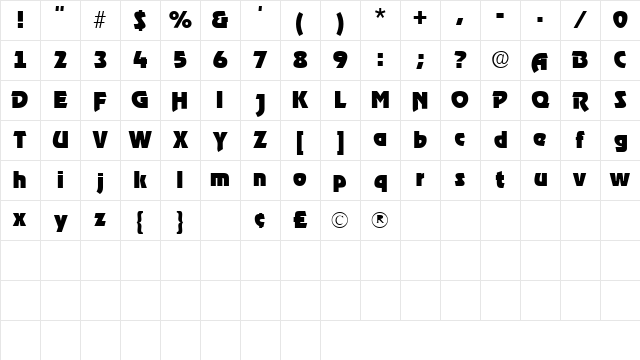
Design Context for TenaceSSK
TenaceSSK is a composed and adaptable typeface that performs quietly and consistently across a wide range of design contexts.
Pro Tip: Use TenaceSSK in both headline and body roles to test its range before committing to a single application.